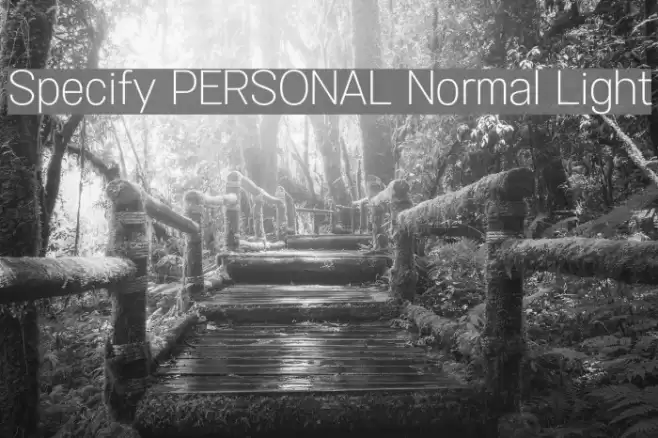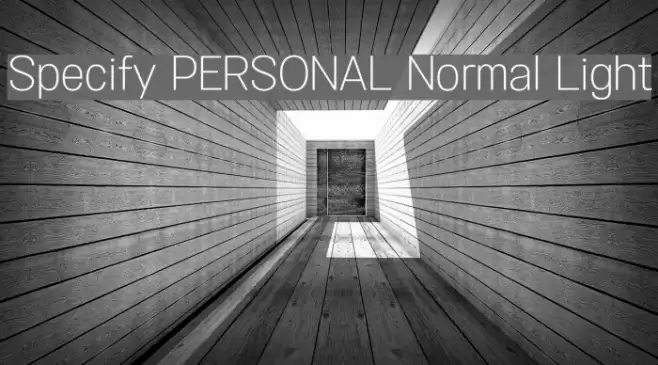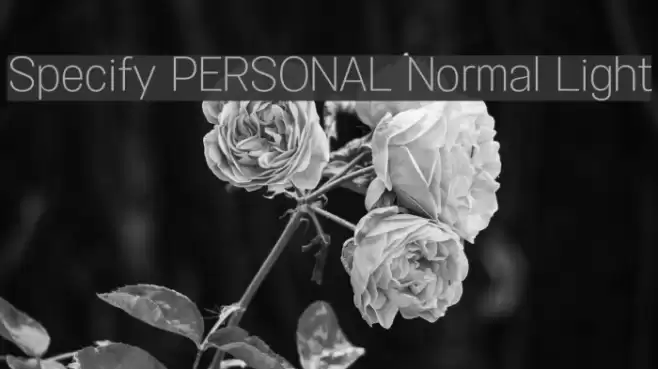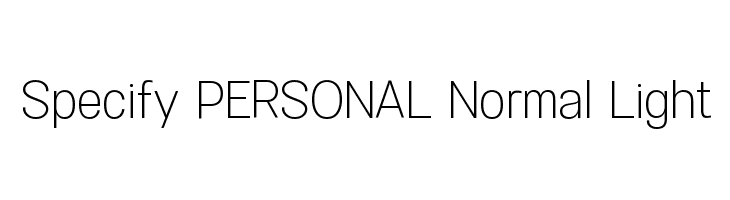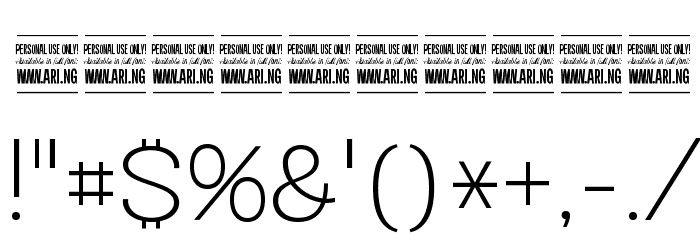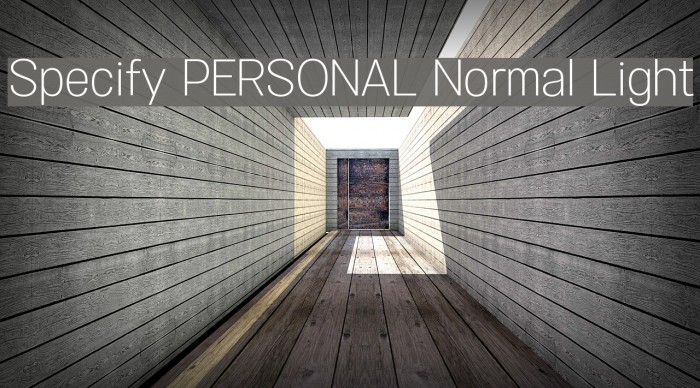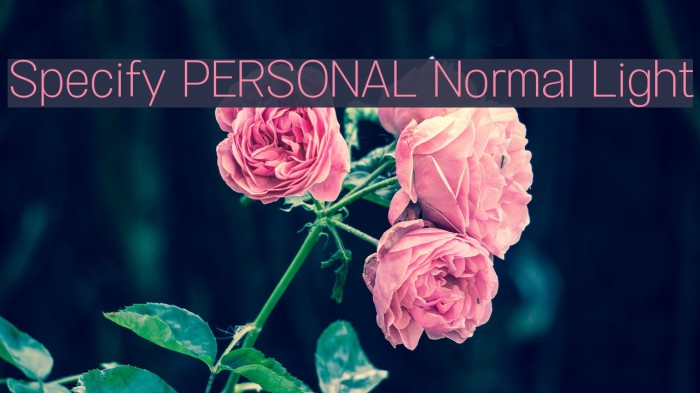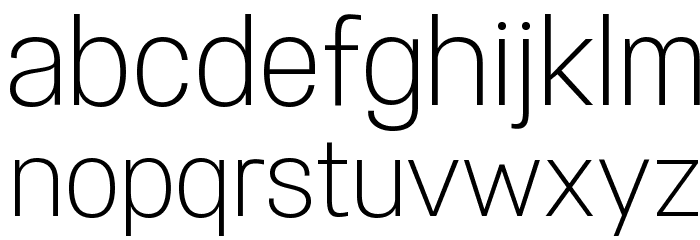
Specify PERSONAL Normal Light Font
Specify PERSONAL Normal Light Description
This font features a clean and modern sans-serif style with a light weight, offering a sleek and minimalist appearance. The characters are evenly spaced, providing a balanced and harmonious look. Its simplicity and clarity make it highly legible, suitable for both digital and print media. The font includes a full set of uppercase and lowercase letters, numbers, and a variety of special characters, making it versatile for various design needs. Its geometric shapes and uniform stroke widths contribute to its contemporary aesthetic, making it ideal for projects that require a modern and professional touch.
A modern, light, sans-serif font with clean lines and balanced spacing from Uncategorized fonts.
- Proposed Projects: Ideal for branding, web design, corporate materials, and minimalist posters.